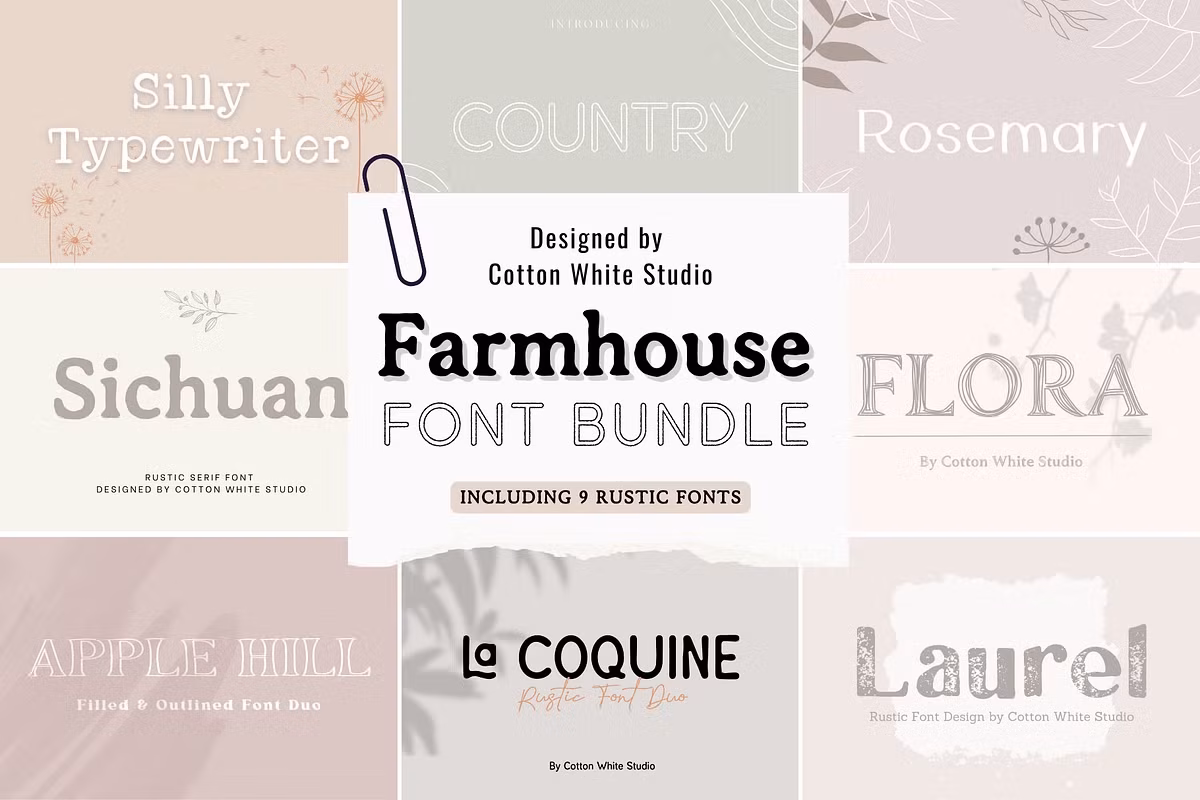
Farmhouse Font Bundle is perfect for rustic wedding invitations, home decor signage, farm-to-table restaurant branding, country-style packaging design, vintage poster creation, rustic logo design, barn wood signs, craft project labels, agricultural business materials, cozy cafe branding, and countryside event promotions.
Farmhouse Font Bundle is exciting because it perfectly captures the warm, nostalgic charm of rural countryside living while delivering modern design functionality and professional quality. This delightful collection evokes feelings of comfort, authenticity, and timeless tradition through carefully crafted letterforms that balance rustic character with contemporary readability. Each font within the bundle tells a story of simpler times and genuine craftsmanship.
Farmhouse Font Bundle includes diverse font families: Classic Farmhouse Serif, Rustic Script Style, Barn Wood Display, Vintage Slab Serif, Handwritten Country, Distressed Weathered, Clean Modern Rustic, Decorative Ornamental, Condensed Narrow, and Special Symbol Sets, offering comprehensive design solutions for rural-inspired projects.
This charming typography collection transforms digital designs into heartwarming visual experiences through its authentic countryside aesthetic and versatile styling options. Farmhouse Font Bundle Free Download provides designers with access to premium rustic typography that instantly adds warmth, authenticity, and homestyle appeal to any creative project. The bundle's extensive variety ensures perfect matches for different design contexts while maintaining consistent quality and rural charm.
Interior designers, event planners, and brand creators love Farmhouse Font Bundle for its ability to create inviting, approachable designs that resonate with audiences seeking comfort and authenticity. Each font demonstrates unique personality traits, from weathered barn signs to elegant country script, providing genuine options for various commercial and personal applications. The comprehensive character sets include vintage-inspired numerals, decorative elements, and special punctuation designed with rustic sensibilities.
The development process behind Farmhouse Font Bundle involved studying traditional American farmhouse typography and hand-painted signage to capture authentic rural design elements. This research-based approach ensures each font maintains historical accuracy while optimizing performance for modern digital applications across all platforms and devices.